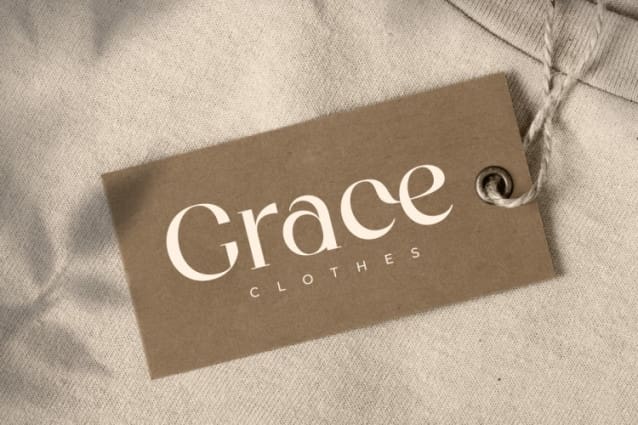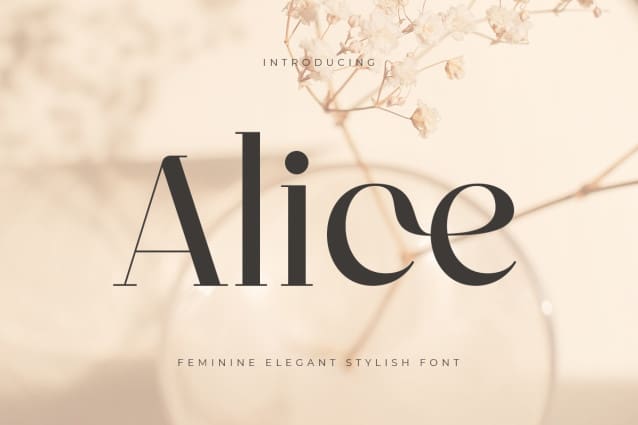
Alice Serif Font
Alice Serif Font, A Serif font that we created special for elegant branding needs, with extra ligature and alternates in unique shape will be ready to add value of your brand. It so nice to leverage designer or product owner that need solutions to make their design look more stylish and modern. And specially for Alice Serif font, We prepared any ligatures characters to help you create unlimited variations for your creative needs.